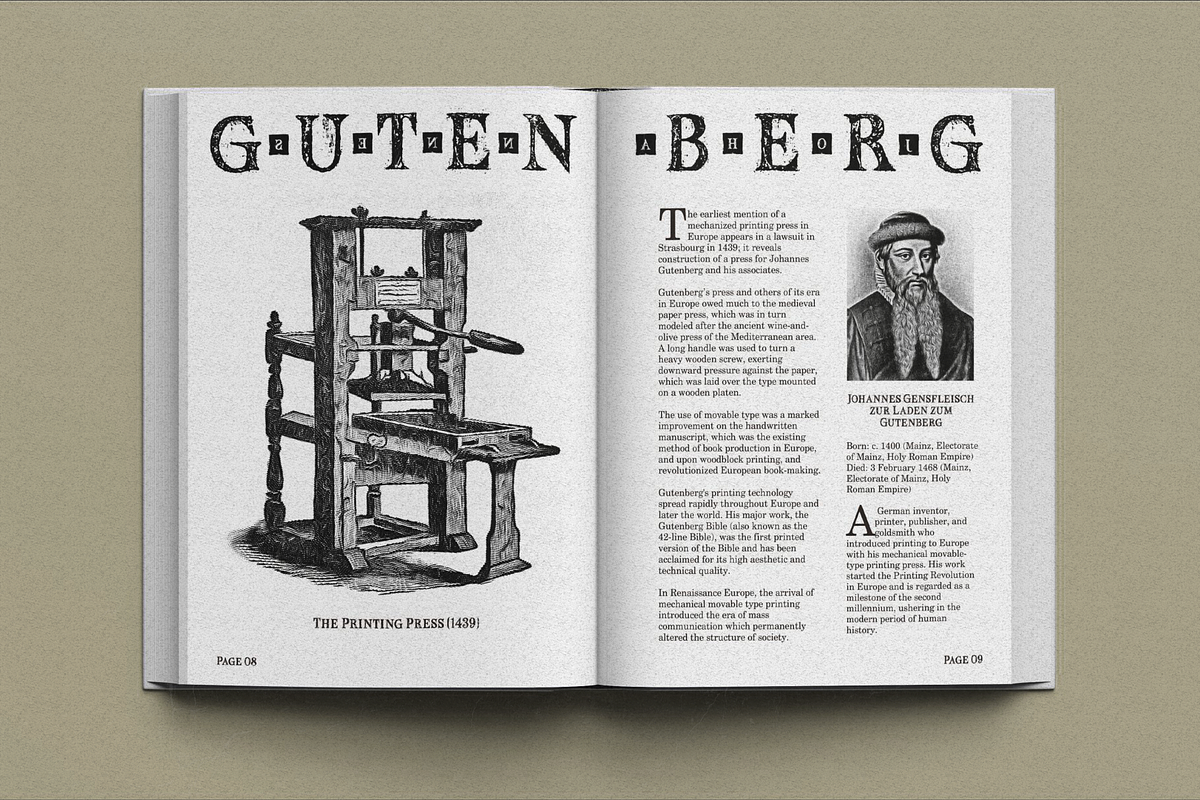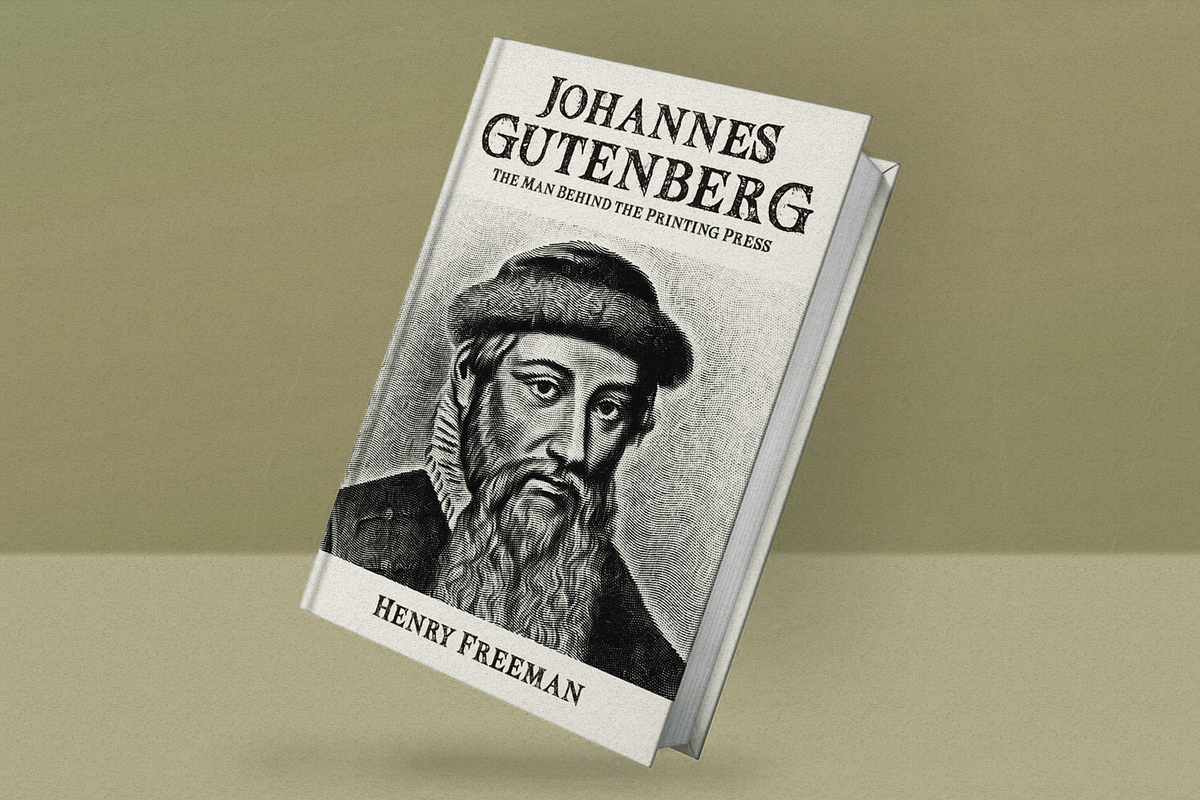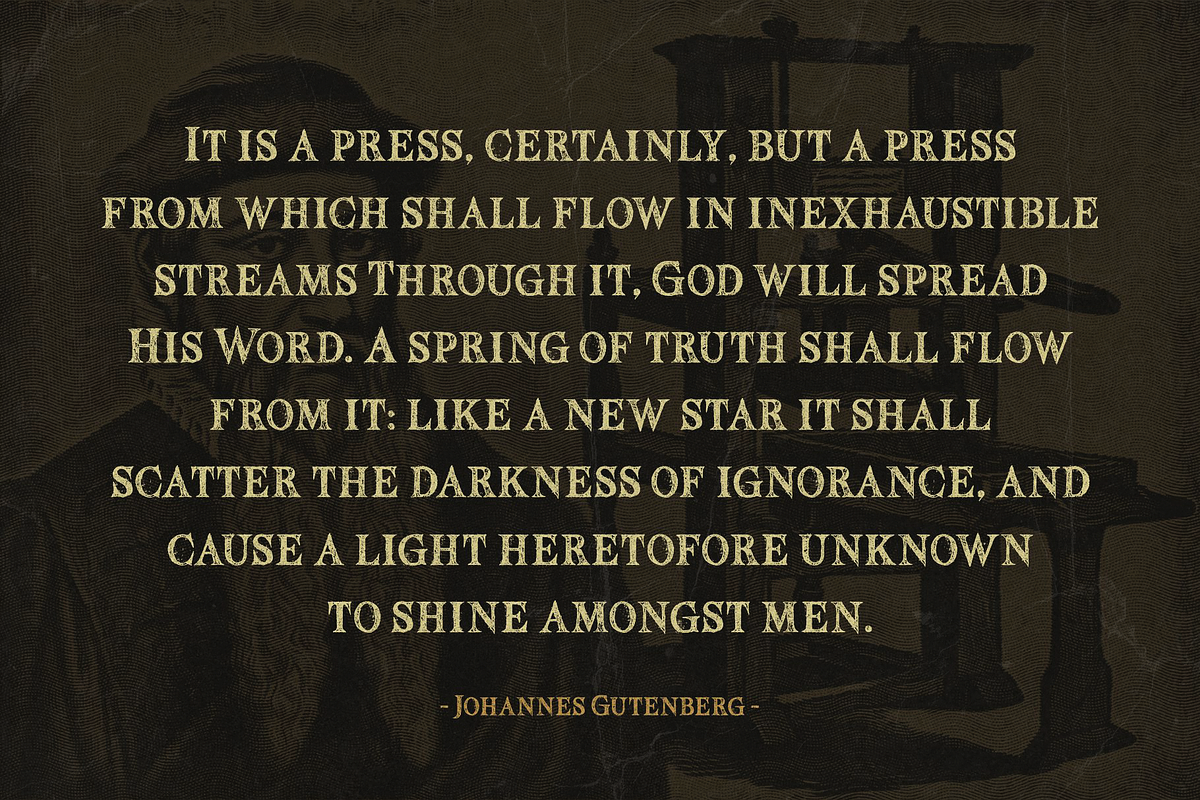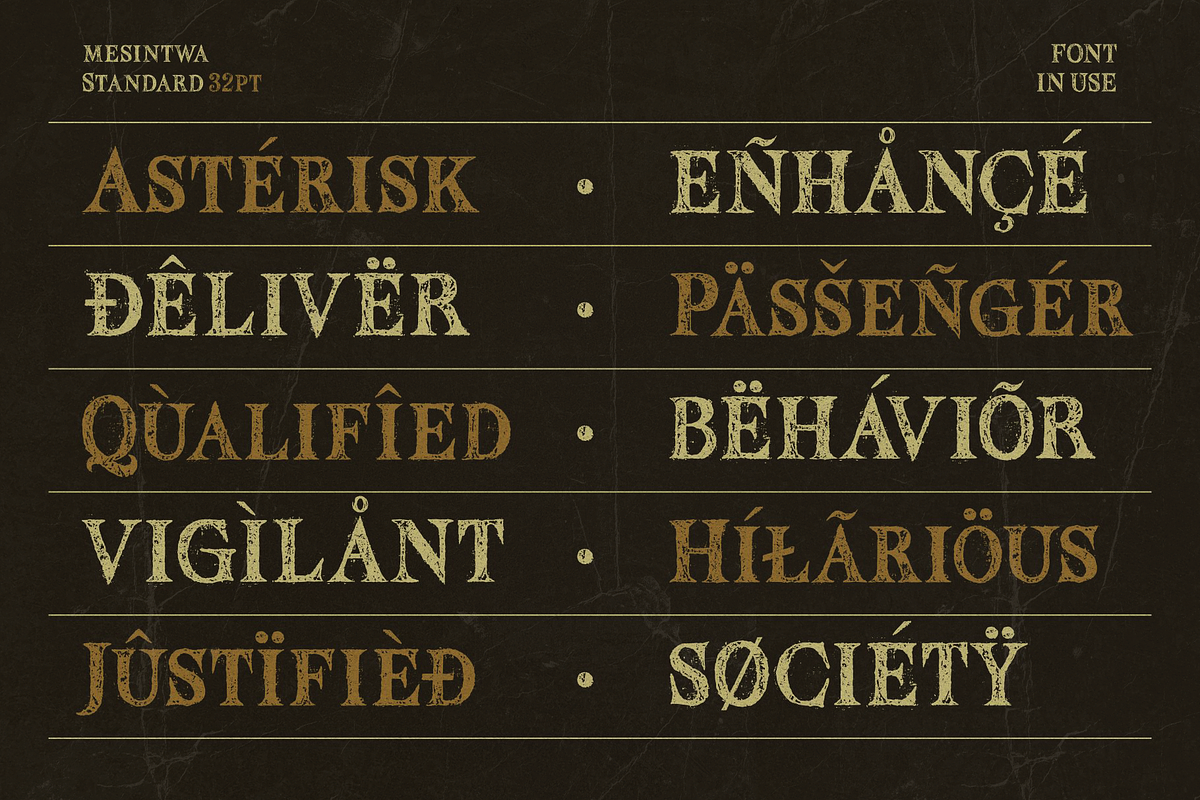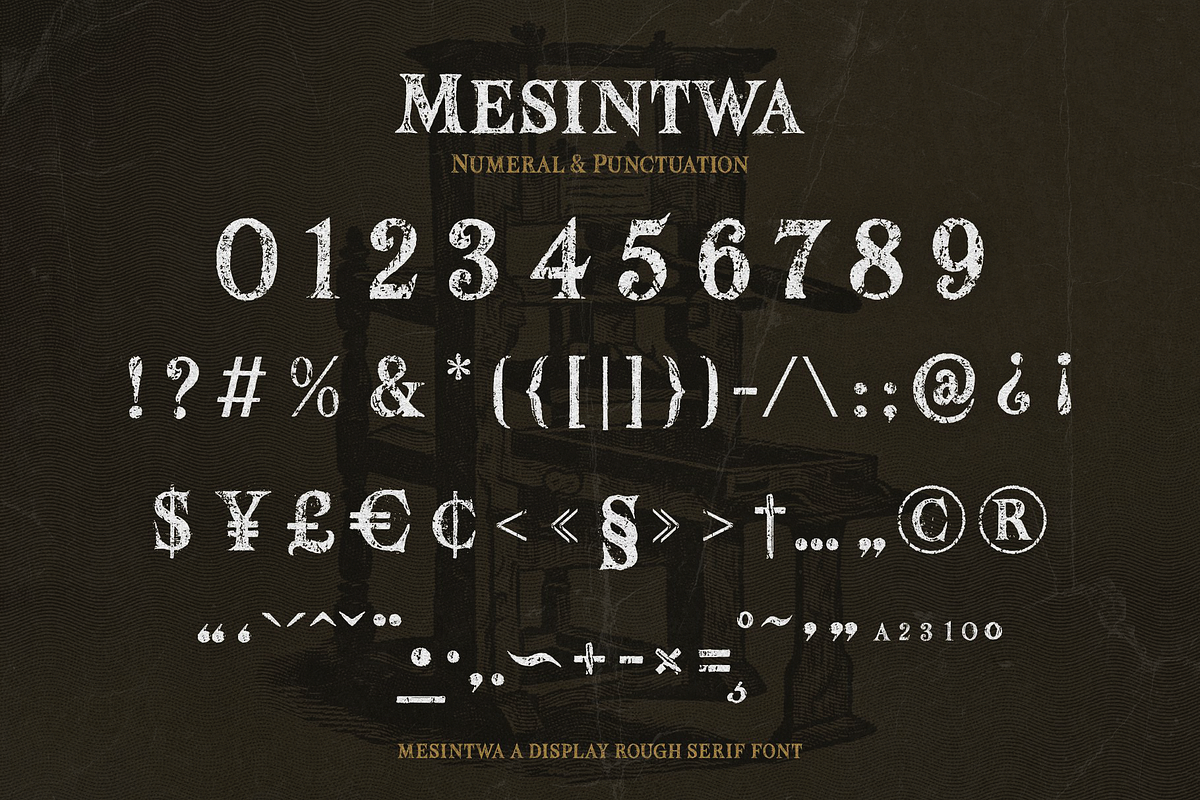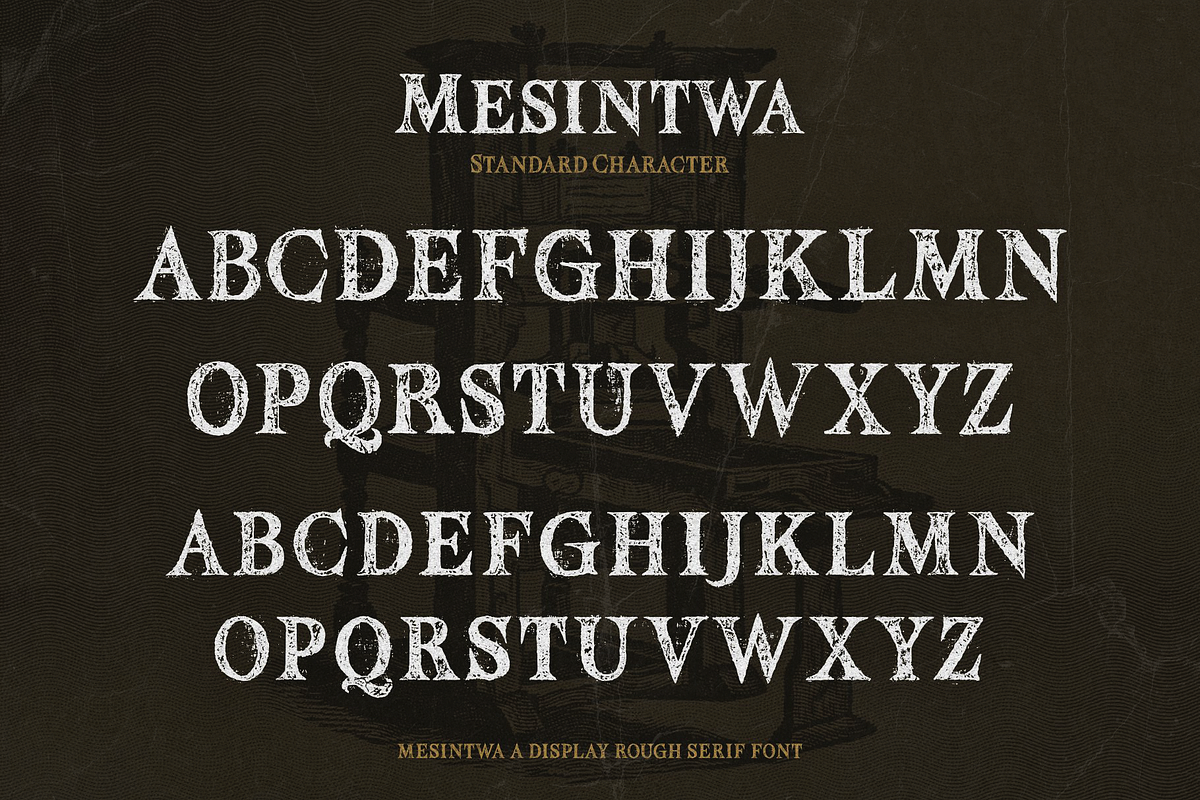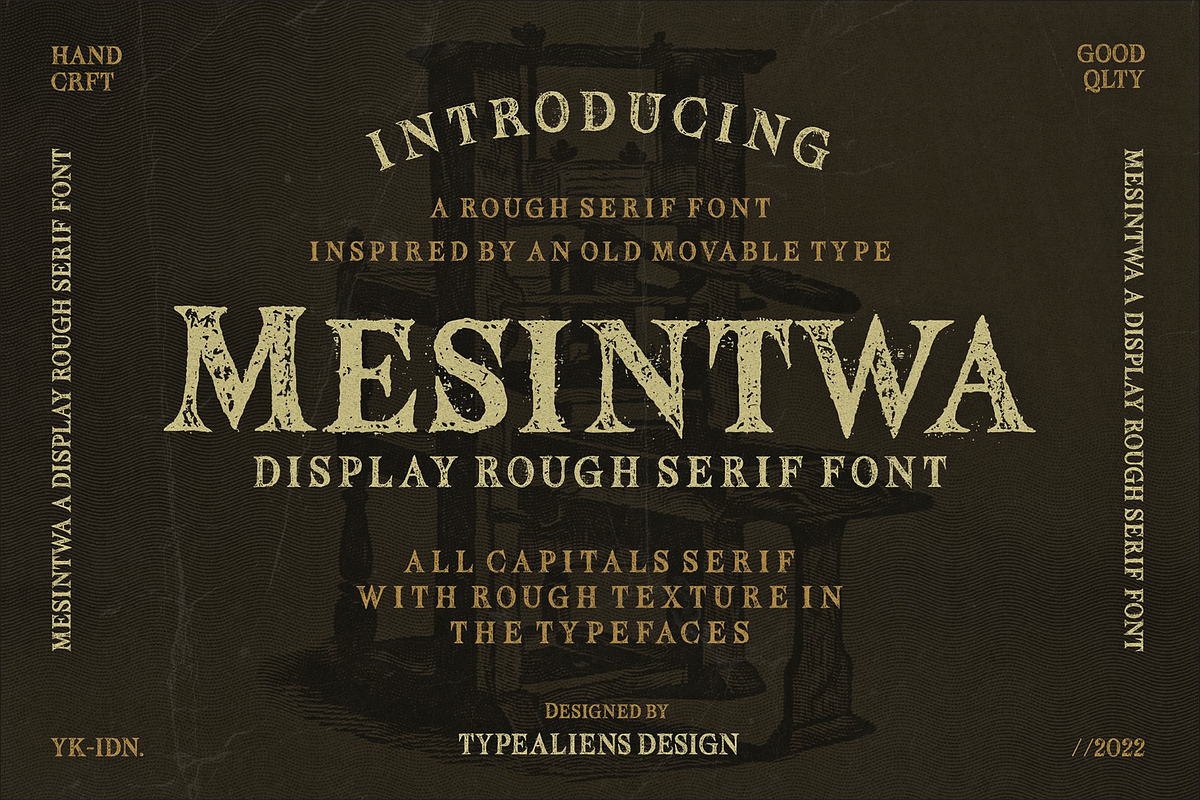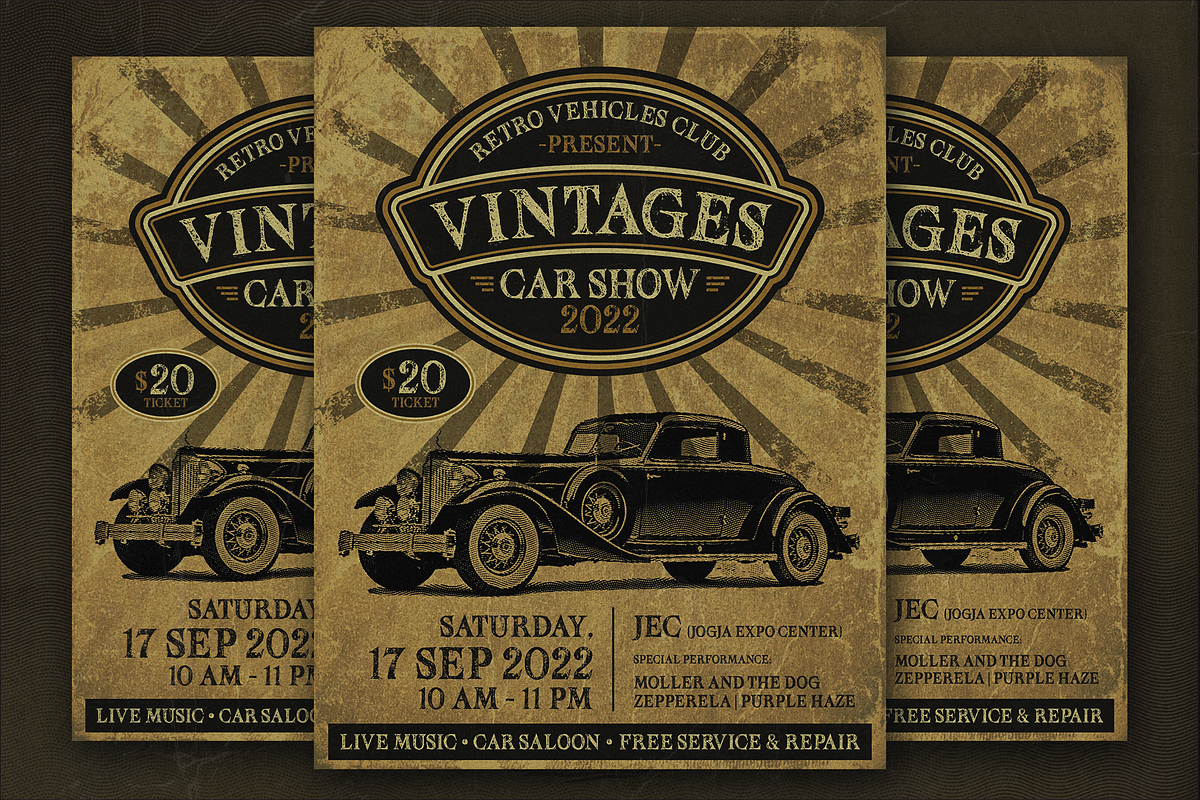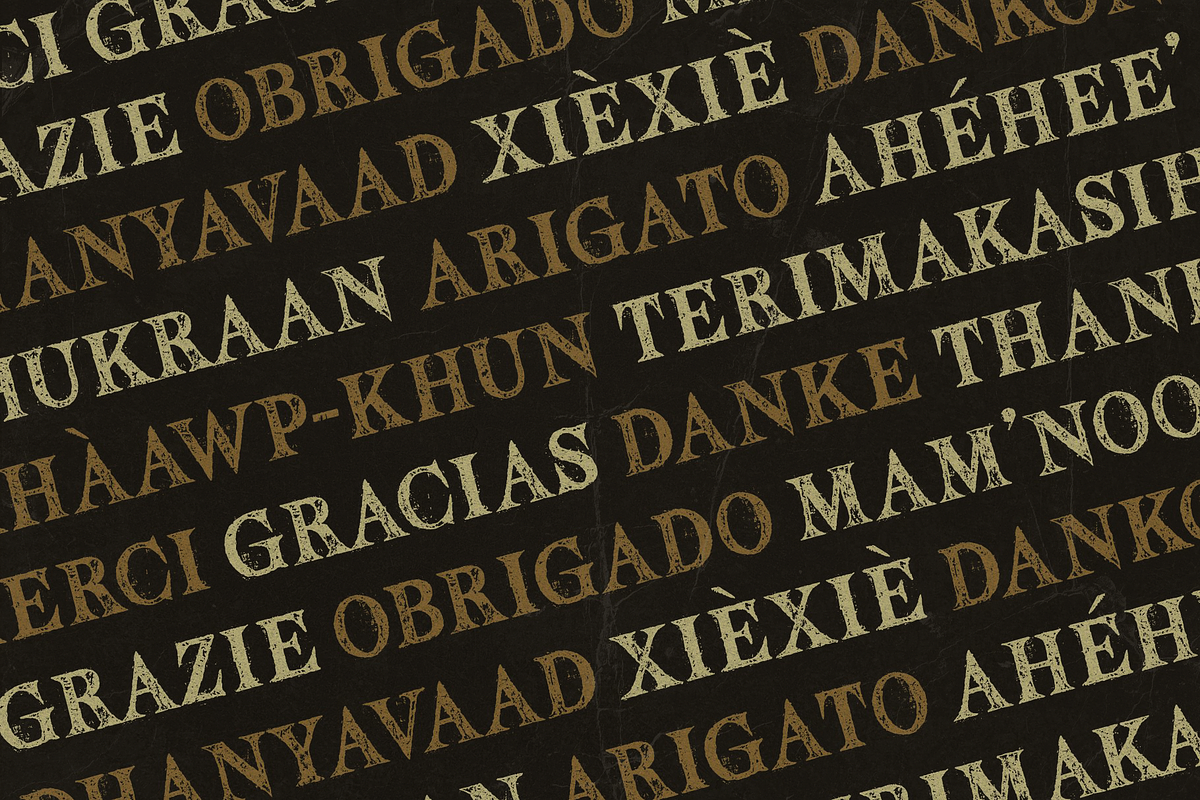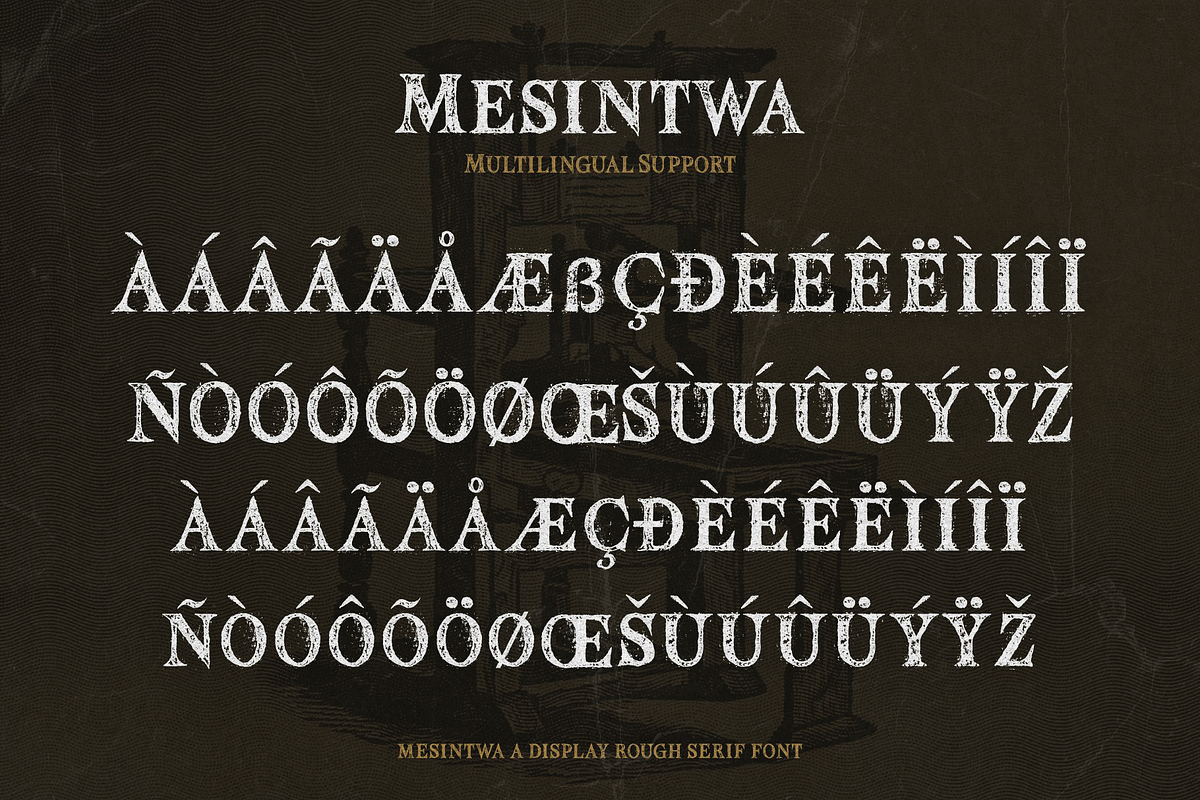
Mesintwa
MESINTWA
Mesintwa is a font that is basically a classic serif font then to make it different from other serifs is to give the effect as if it were a letter on a letterpress machine, it will add a vintage impression because remembering that letterpress machines were the beginning of a printing press.